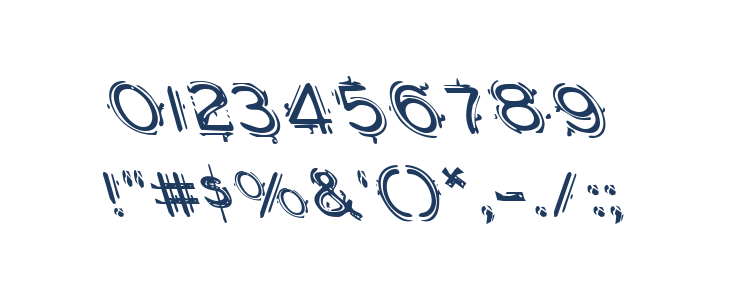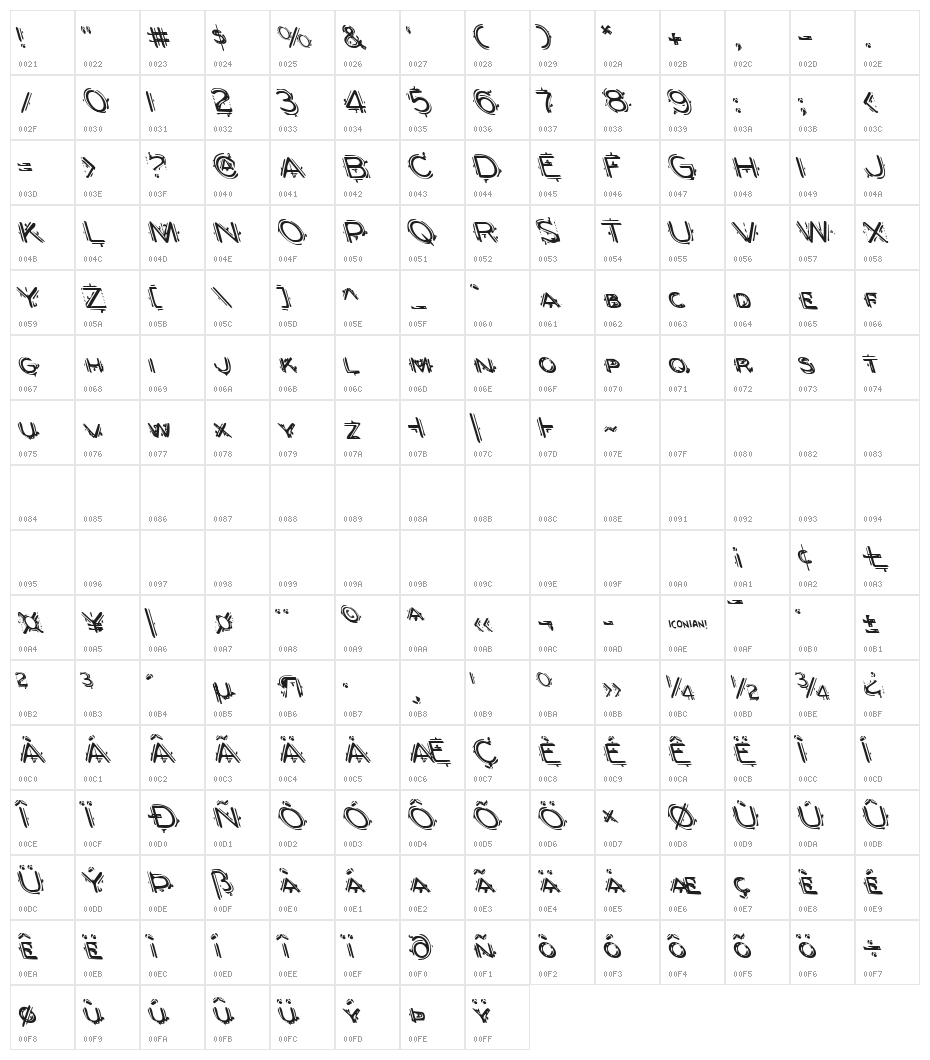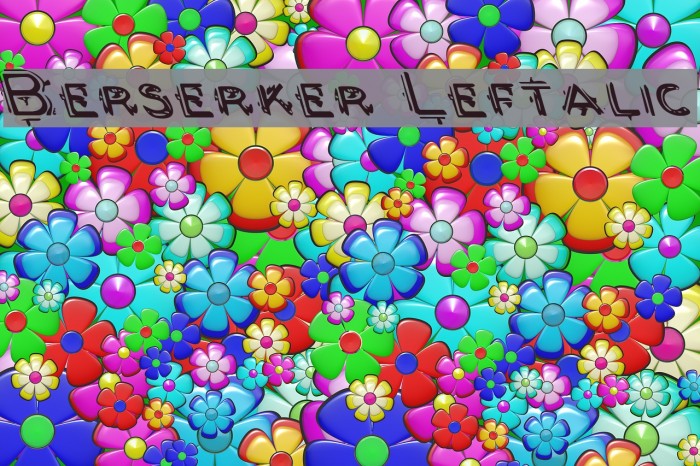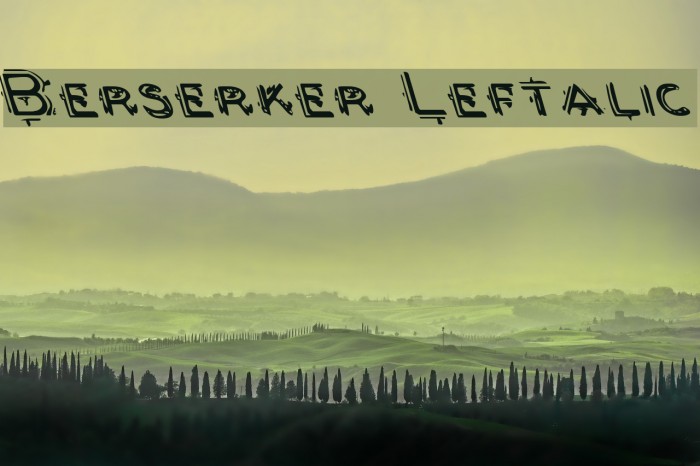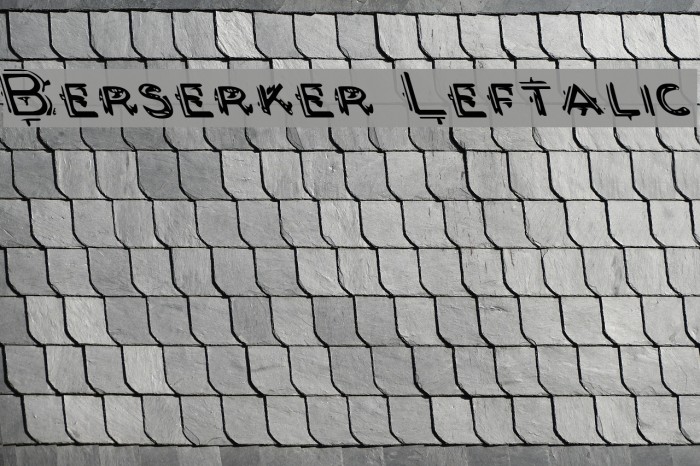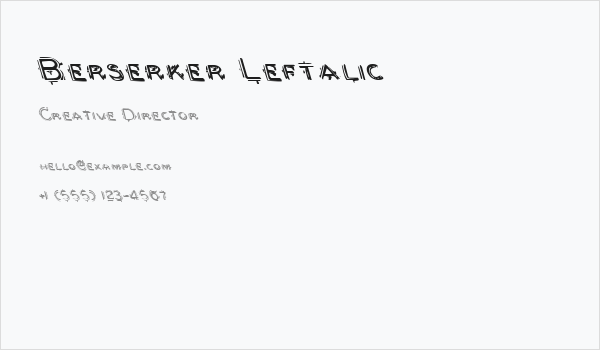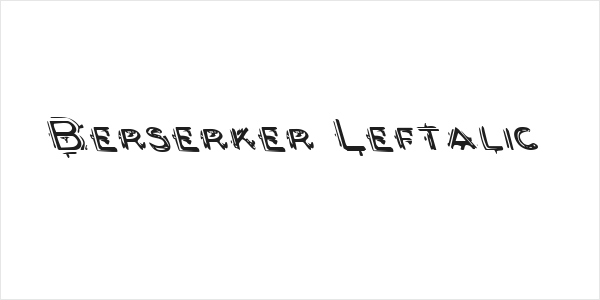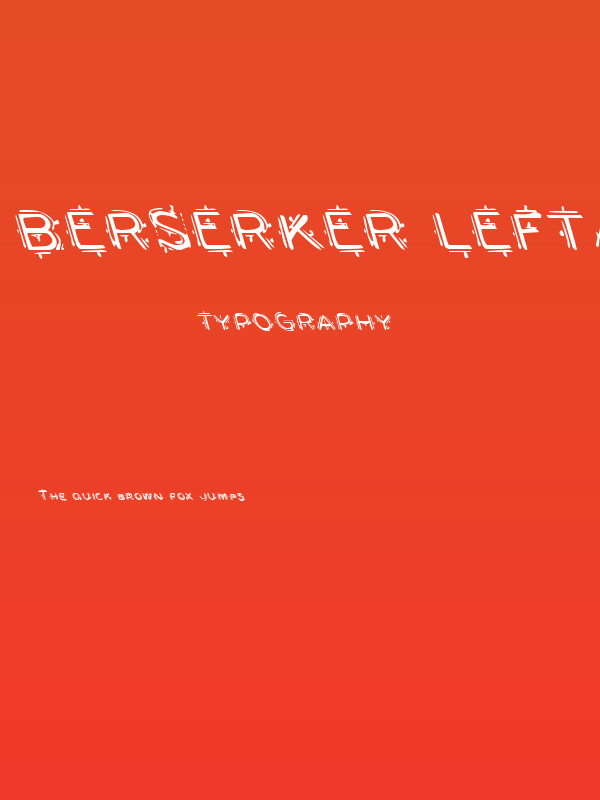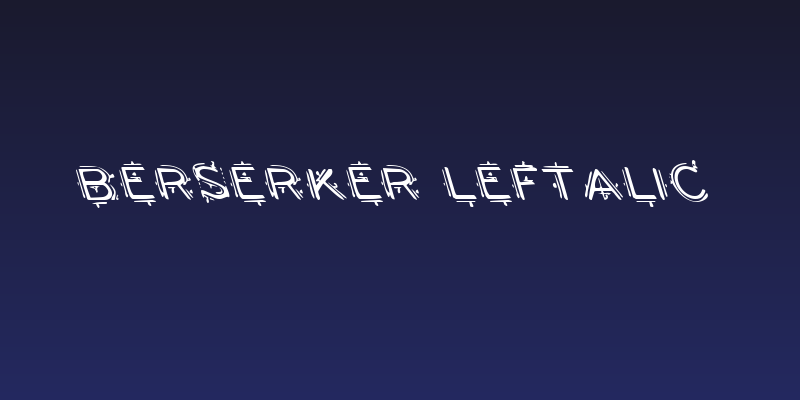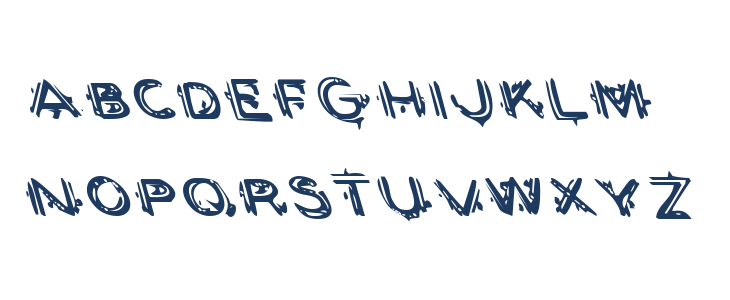
Berserker Leftalic Font
Berserker Leftalic Description
This font features a bold and aggressive style with a distressed, grunge-like appearance. The characters are heavily stylized with jagged edges and irregular strokes, giving them a chaotic and dynamic feel. The uppercase and lowercase letters maintain a consistent design, with a strong emphasis on angular and sharp elements. The numbers and special characters follow the same aesthetic, ensuring a cohesive look across all glyphs. This font is designed to stand out and make a statement, perfect for projects that require a bold and unconventional typeface.